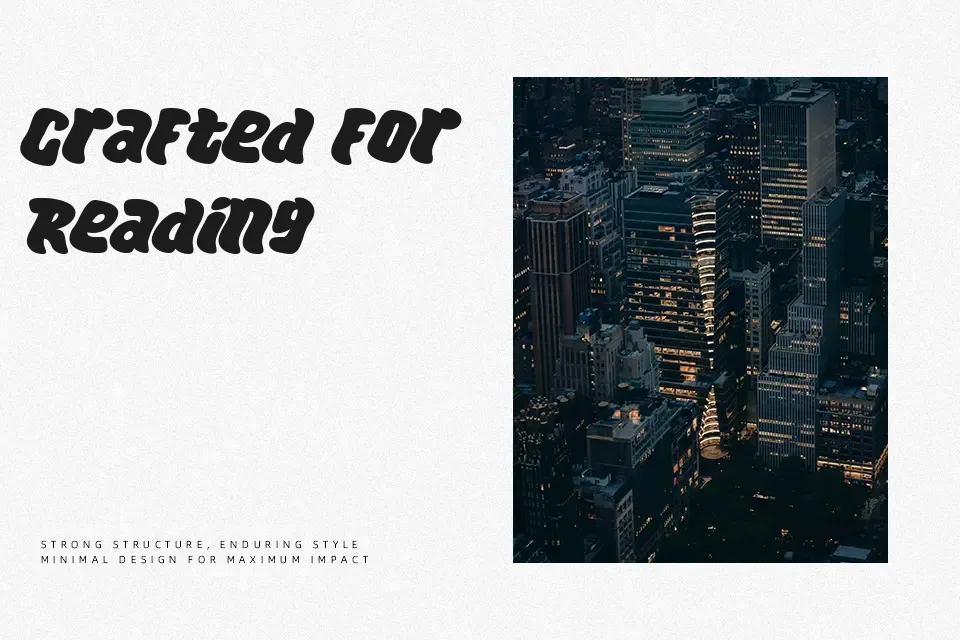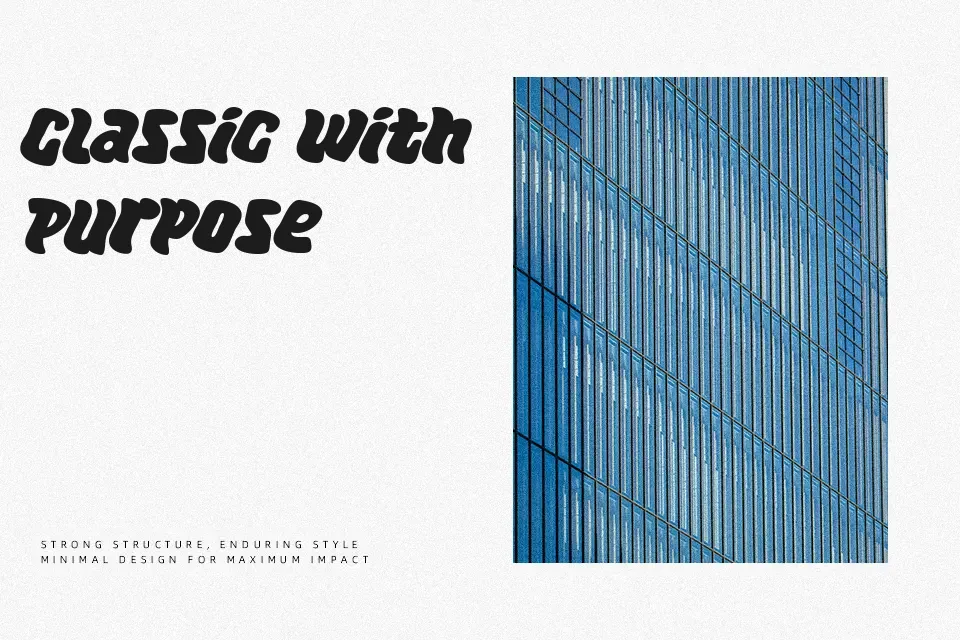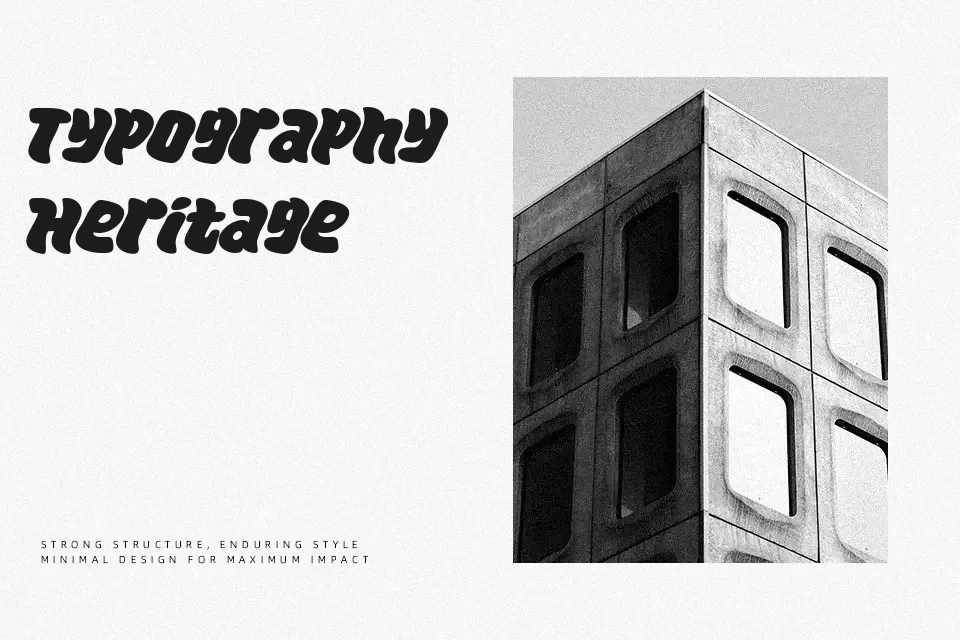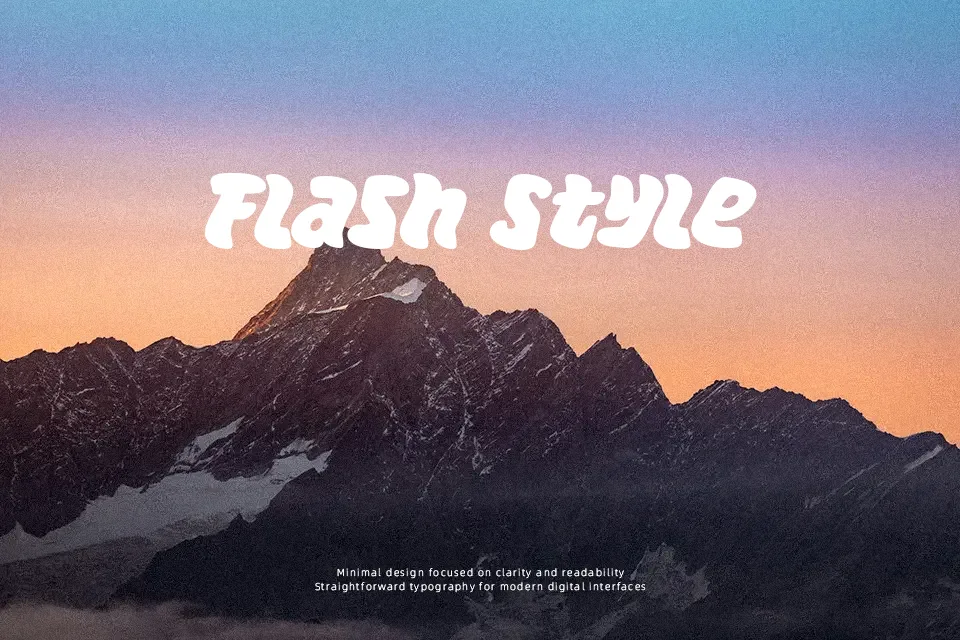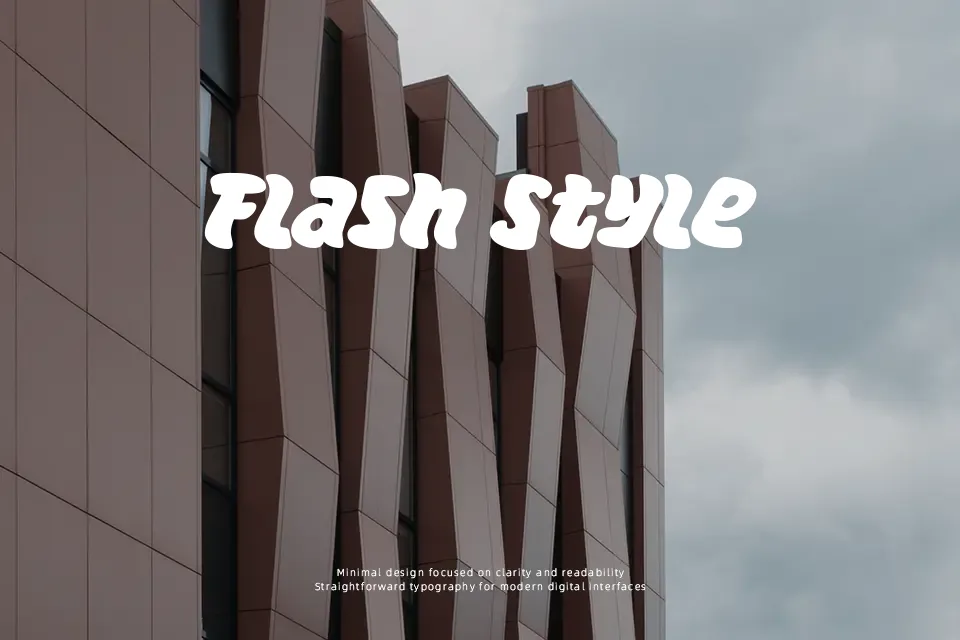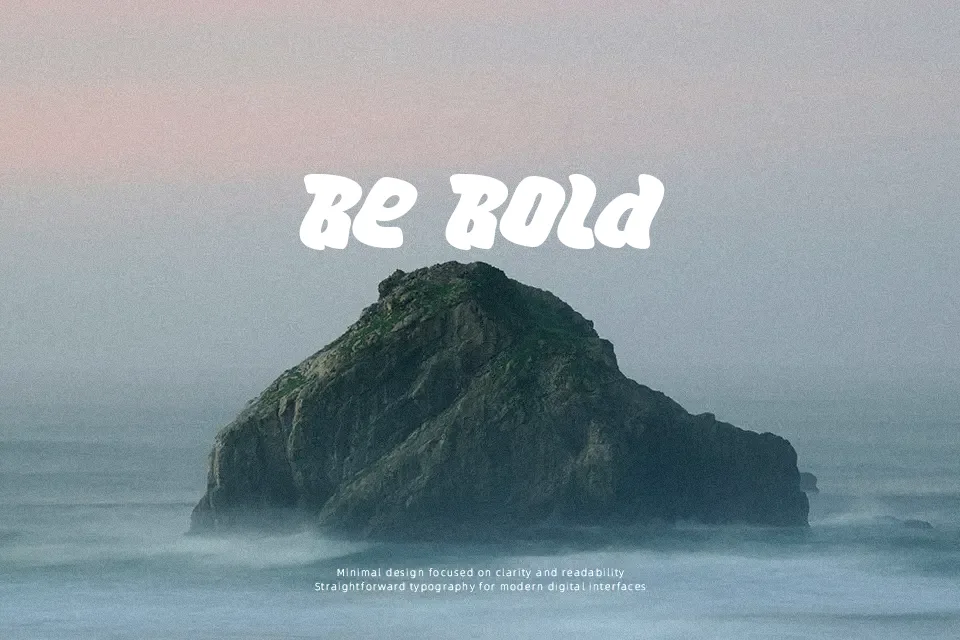
Super Pastry Font
Super Pastry Font uses bulky rounded forms, smooth curves, and heavy low-contrast strokes to create a soft cartoon display look. The wide proportions and generally open internal spaces make individual characters easy to recognize in large headlines, while the rounded construction gives short words a friendly, inflated rhythm. It works most naturally for kid-focused artwork, snack labels, playful posters, and informal logo treatments. The generous visual weight helps the typeface stay noticeable in graphic layouts, but its thick decorative forms are less comfortable in long passages or very small text.